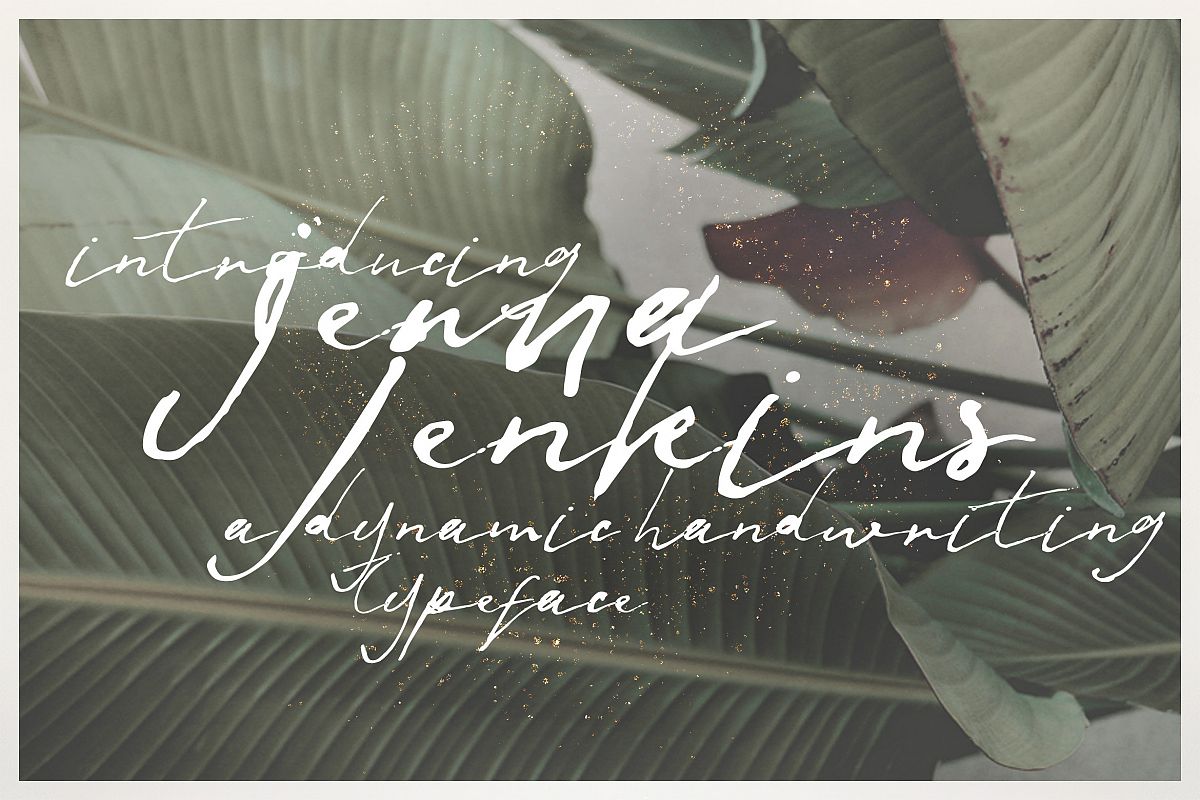
Jenna Jenkins
Jenna Jenkins is a rustic font, that is created to look like your original handwriting style.
With its pen-style look, Jenna Jenkins is best for your signature for design work, greeting card title, badge and sticker, logo and return address, web design & text, some cover design and so forth, you decide!
Jenna Jenkins comes with accented glyphs for international language (check image preview to see what’s included) and also a unique ligature feature (that’s different from the main glyphs), allows you to create different look to your design.
Jenna Jenkins Features:
- Natural Handwriting Stroke
- Unique Ligature Style
- Hand Drawn Font
- Accented Glyphs